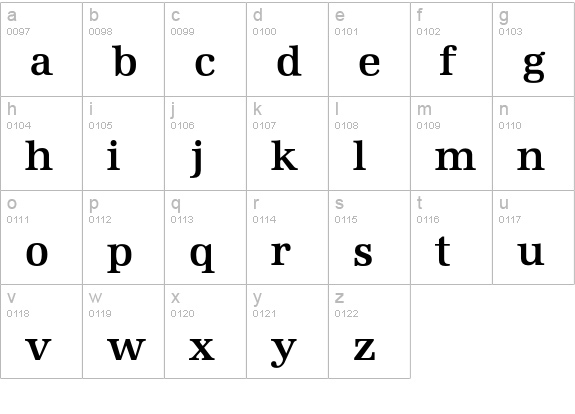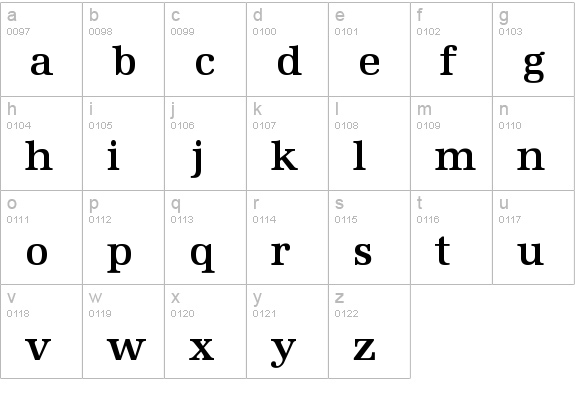
EdisonEF-SemiBold Font Details
EdisonEF-SemiBold is a sub-bold, structured variant in the EdisonEF typeface family \xE2\x80\x94 well suited to sub-headlines and emphasised passages.
EdisonEF-SemiBold is a versatile and elegant font that exudes confidence and sophistication. Its bold and clean lines make it perfect for headlines, titles, and branding materials. With its unique blend of modernity and classic charm, EdisonEF-SemiBold is sure to captivate and engage any audience. This font boasts a strong presence on any medium, whether it's print or digital. Its carefully crafted letterforms ensure legibility and readability, making it suitable for a wide range of design projects. From logos to posters, from websites to packaging, EdisonEF-SemiBold adds a touch of professionalism and style to any composition. One of the best things about EdisonEF-SemiBold is that it is freely available to download at FontsMarket.com. This means that designers, creatives, and enthusiasts alike can easily access and use this exceptional font without any limitations. Whether you're a professional designer or just someone with a passion for typography, EdisonEF-SemiBold offers you the freedom to express your creativity and enhance your projects. The extensive character set of EdisonEF-SemiBold includes uppercase and lowercase letters, numerals, punctuation marks, and special characters. This versatility allows you to create eye-catching and impactful designs that truly stand out. Experience the beauty and versatility of EdisonEF-SemiBold today. Download it for free at FontsMarket.com and unlock a world of possibilities for your design projects. Let this font elevate your work with its timeless appeal and effortless elegance.